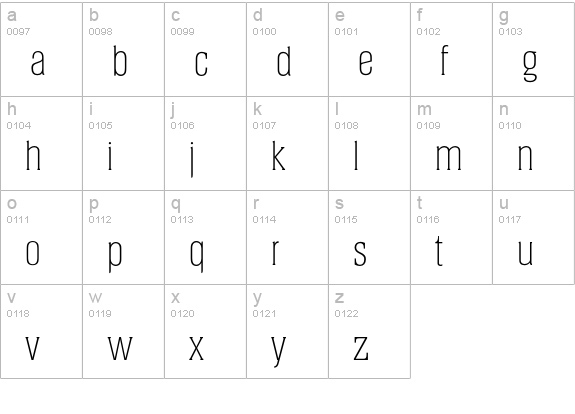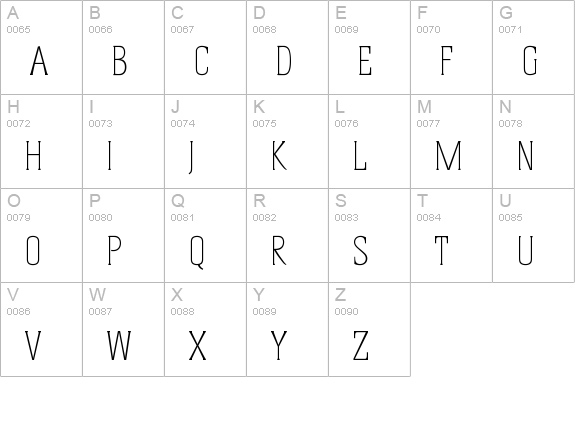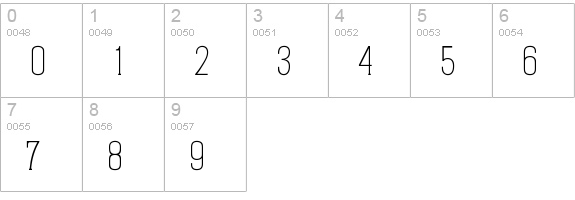
Helium-Xlight Font Details
Introducing Helium-Xlight, a font that effortlessly combines elegance and modernity, making it the perfect choice for any design project. With its sleek and refined appearance, this typeface is a true testament to the beauty of simplicity. Helium-Xlight's delicate and slender letterforms exude a sense of sophistication, while its clean lines and subtle curves add a touch of contemporary flair. Its versatility allows it to seamlessly adapt to various design styles, from minimalist to elaborate, ensuring that it will always make a statement. But what sets Helium-Xlight apart is not just its exceptional aesthetics, it's also the fact that it is completely free. Yes, you read that right! This incredible font is freely available to download at FontsMarket.com, allowing designers, creatives, and enthusiasts alike to access its beauty without any cost. Whether you're working on a personal project, a professional endeavor, or simply looking to enhance your typographic collection, Helium-Xlight is the ideal choice. Its stylish and refined appearance will elevate your designs to new heights, captivating your audience and leaving a lasting impression. So why wait? Experience the beauty of Helium-Xlight today. Download it for free at FontsMarket.com and unlock a world of possibilities for your next creative venture. Don't miss out on this incredible opportunity to add a touch of elegance to your designs without spending a dime. Embrace the seamless blend of modernity and sophistication with Helium-Xlight, the font that is as beautiful as it is free.